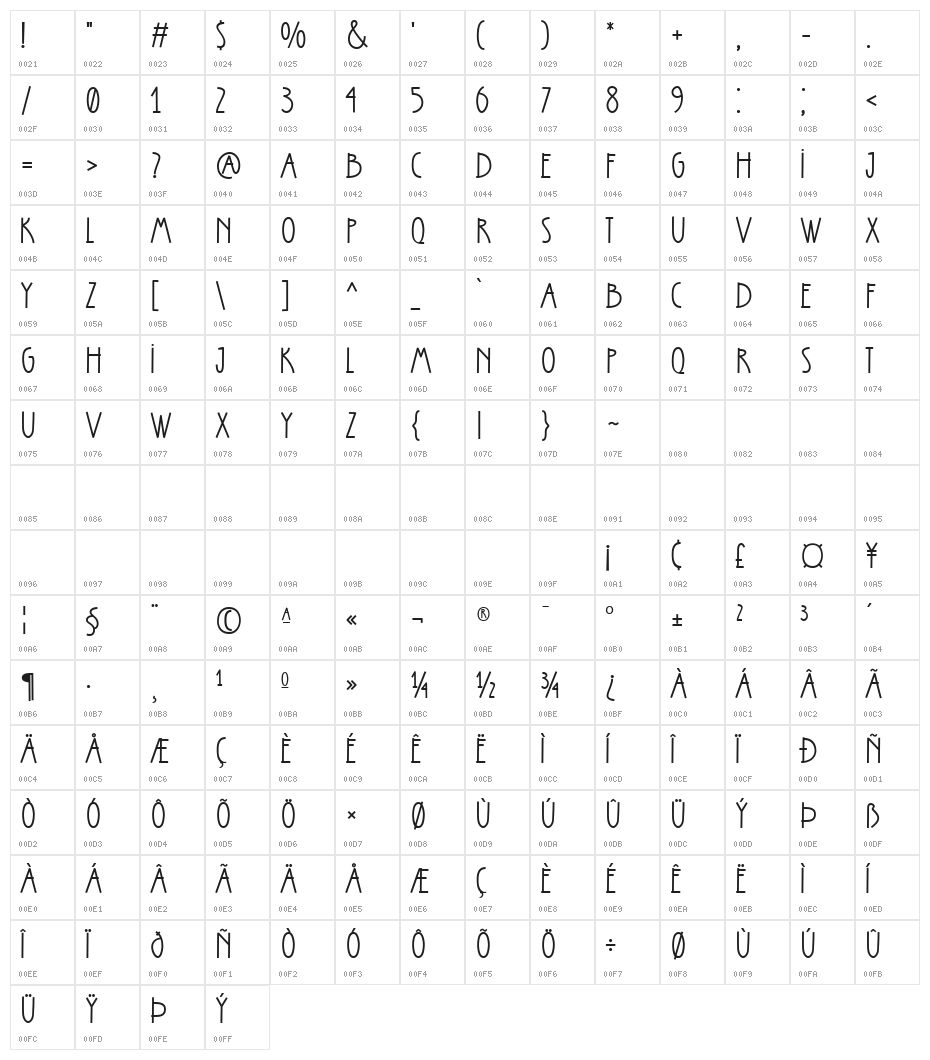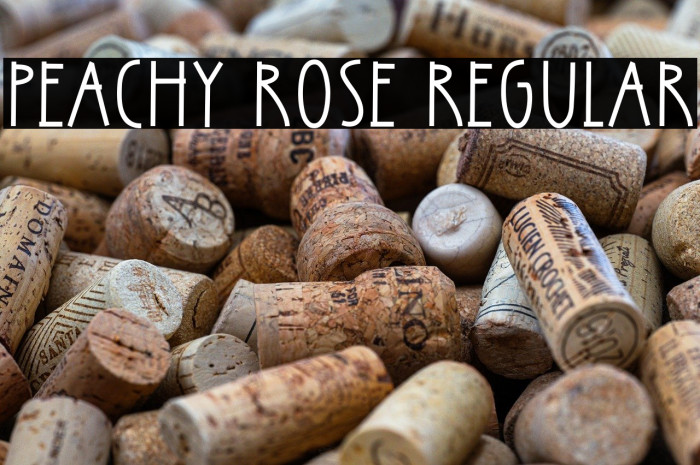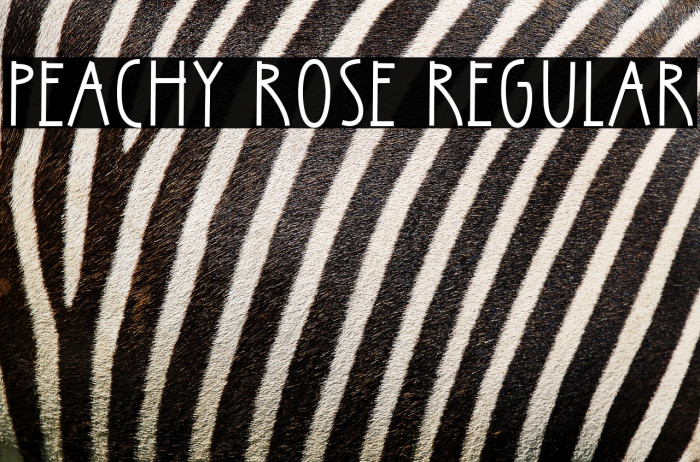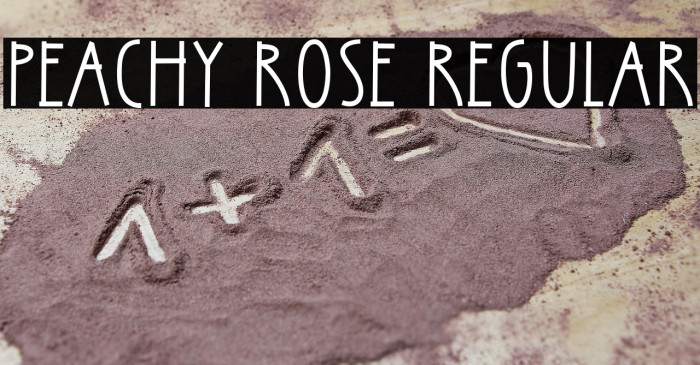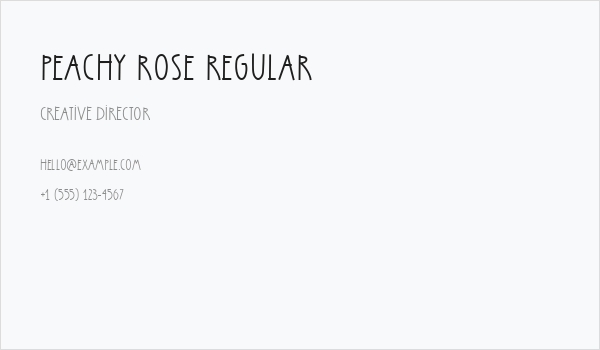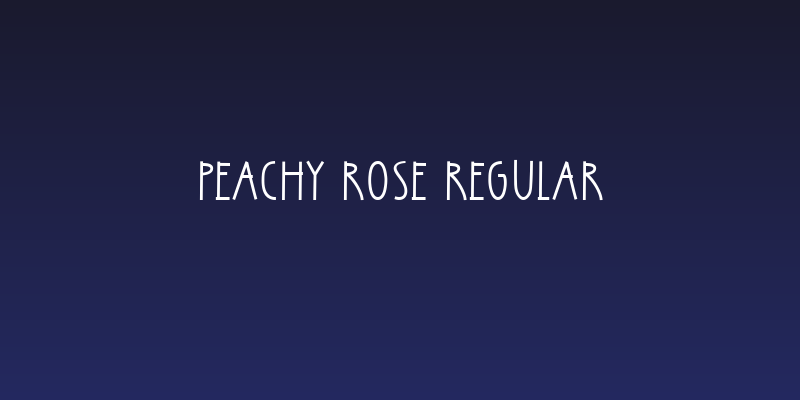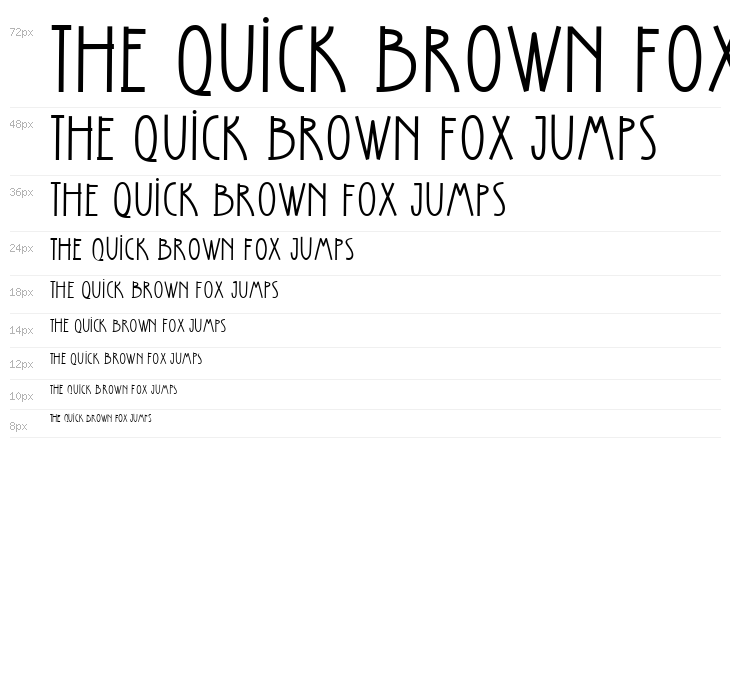
Peachy Rose Regular Font
Peachy Rose Regular Description
This font features a playful and whimsical style with tall, narrow characters. The strokes are consistent in width, giving it a clean and modern appearance. The uppercase letters are slightly elongated, adding a touch of elegance, while the lowercase letters maintain a friendly and approachable feel. The numbers are clear and easy to read, making them suitable for various applications. Special characters are well-designed, complementing the overall aesthetic. This font's unique charm makes it versatile for creative projects.